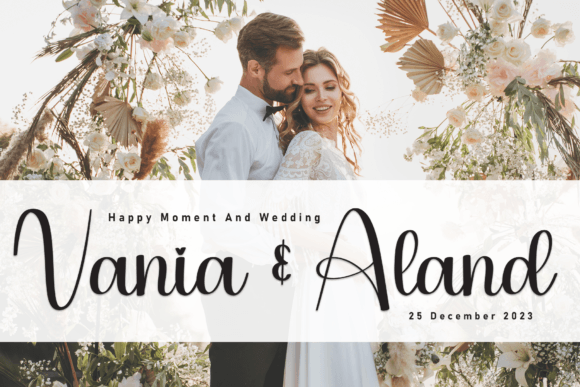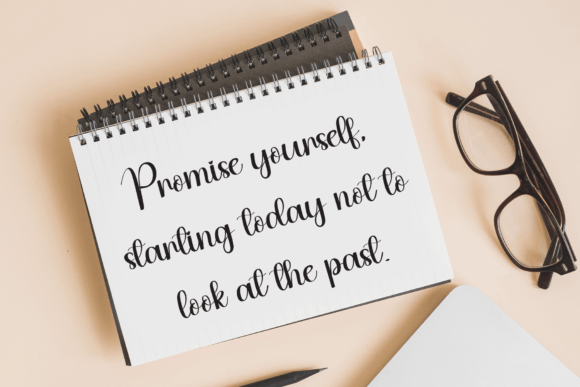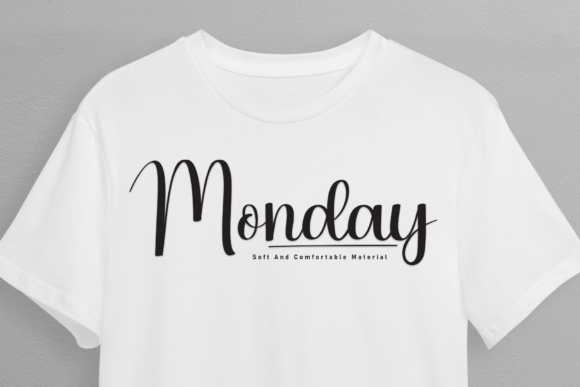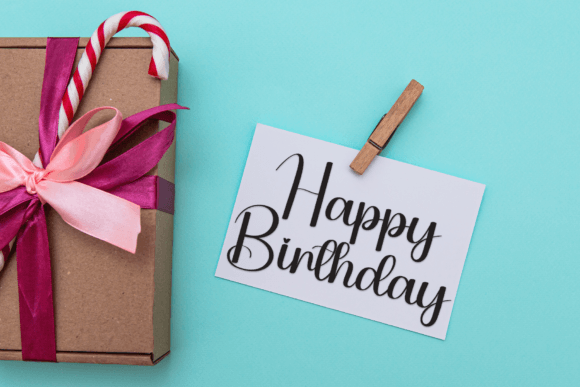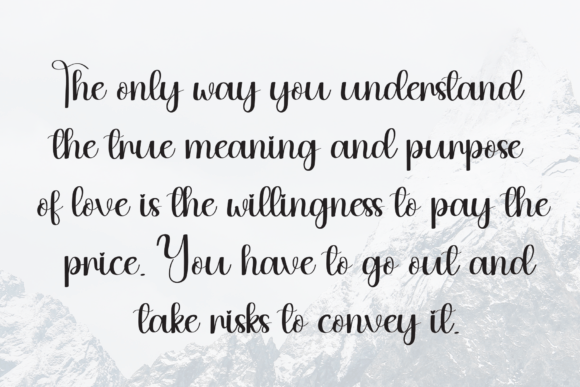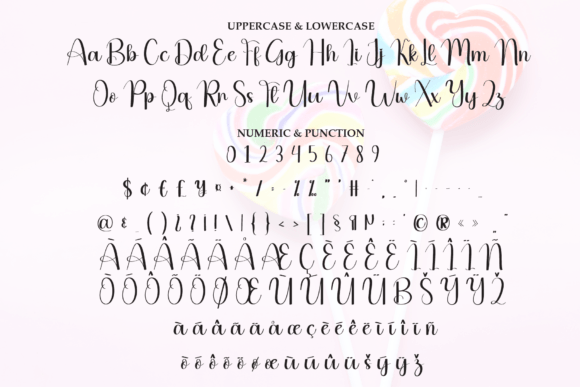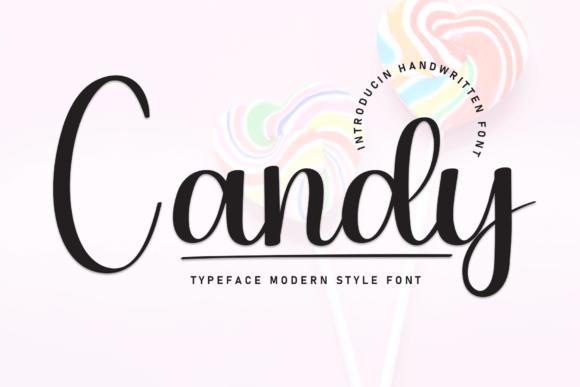
Sweet Inspiration: Unlocking the Magic of Candy Font
As I sat at my desk, surrounded by scraps of paper, glue sticks, and colorful pens, I was stuck. I had a wedding invitation to design, but I just couldn’t seem to find the right words. That’s when I stumbled upon a sweet and friendly handwritten font – the perfect remedy for my creative block. I knew I had to share its charm with the world.
Meet Candy Font, a delightful, versatile font that’s perfect for adding a touch of whimsy to any design. Whether you’re crafting wedding invitations, birthday cards, or social media graphics, Candy Font is the ideal choice. Its playful, handwritten feel is sure to capture the hearts of your audience. As a designer, you’ll love the flexibility and expressiveness that Candy Font offers, making it a valuable addition to your toolkit.
Candy Font Key Features
- Font Style: A playful, cursive script font with rounded edges and irregular letterforms, ideal for adding a whimsical touch to designs.
- Unique Characteristics: The font’s irregular letterforms and playful style make it perfect for adding a touch of personality to designs, while its rounded edges and smooth curves create a friendly and approachable feel.
Candy Font Review
Candy Font is a playful and whimsical font that is sure to add some sweetness to your designs. Here’s my honest review.
- The font is highly customizable, allowing you to adjust its size, color, and style to fit your needs.
- It’s perfect for creating eye-catching headlines, logos, and graphics that are sure to grab attention.
- The font is highly legible, making it easy to read even in smaller sizes.
- The variety of styles and weights available makes it suitable for a wide range of design projects.
- The font may not be suitable for formal or professional projects, as it can come across as too playful or childish.
- The font may not be as versatile as other fonts, as its unique style may not work well in certain design contexts.
Overall, Candy Font is a fun and creative font that is perfect for designers who want to add some personality to their projects. While it may have some limitations, it’s a great choice for designers who want to create eye-catching and engaging designs.
Use Candy Font to create eye-catching graphics for social media, advertising, and other visual content.
Use Candy Font to add a touch of whimsy to your illustrations, logos, and graphics.
Use Candy Font to add a playful touch to your presentations, reports, and documents.
Candy Font is perfect for:
- Social media graphics and advertising
- Food and dessert branding
- Playful logos and illustrations
Remember to use Candy Font sparingly to avoid overwhelming your design.
Alternatives to Candy Font
Great Vibes is a beautiful, handwritten font perfect for creating a fun and playful atmosphere. It’s ideal for use in titles, headings, and other design elements where a touch of whimsy is needed.
Compared to Candy Font, Great Vibes has a more elegant and refined feel, making it suitable for a wider range of design projects.
Pacifico is a elegant, cursive font that exudes a sense of relaxation and calmness. It’s perfect for use in logos, titles, and other design elements where a touch of sophistication is needed.
Unlike Candy Font, Pacifico has a more subtle and understated feel, making it suitable for use in a variety of design projects, from fashion to travel.
Lobster is a bold, cursive font that’s perfect for creating a sense of excitement and energy. It’s ideal for use in titles, headings, and other design elements where a touch of drama is needed.
Compared to Candy Font, Lobster has a more dramatic and attention-grabbing feel, making it suitable for use in projects that require a bold and eye-catching design.